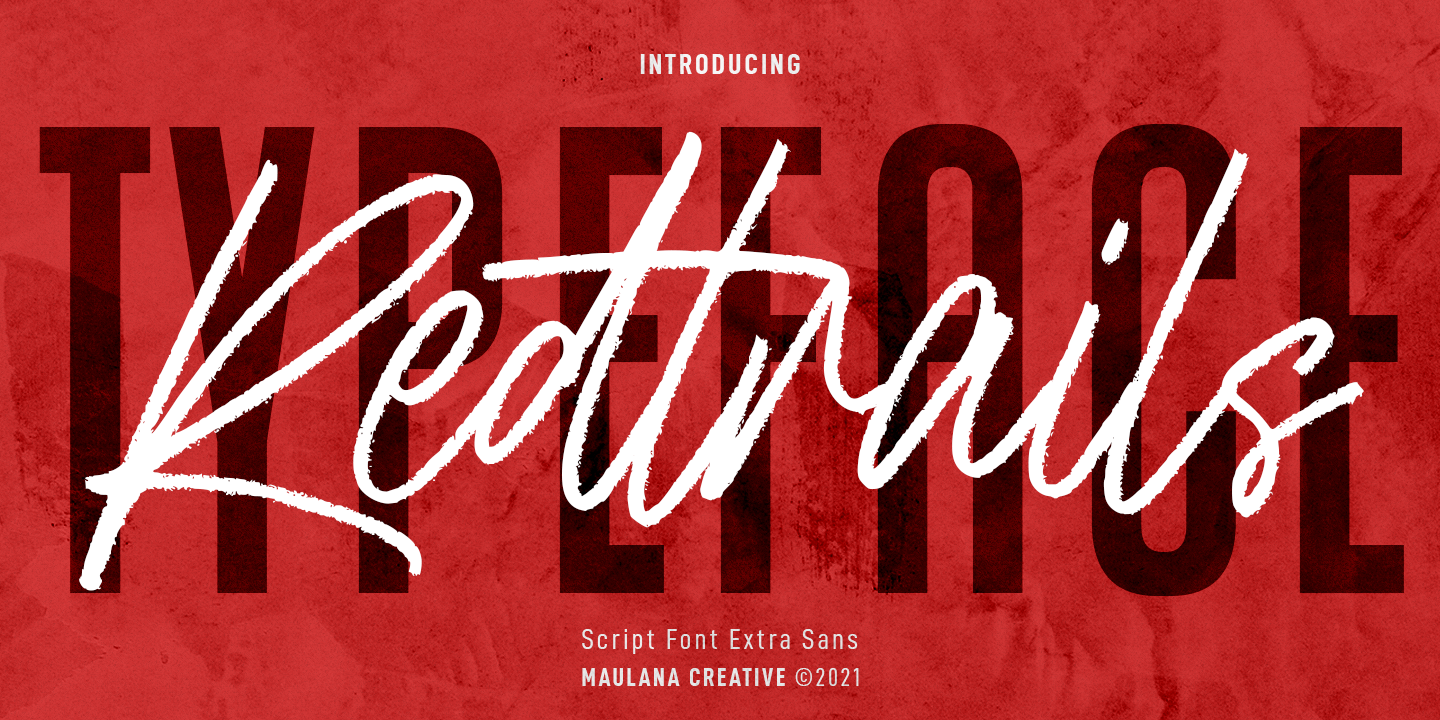
Redtrails Font is a dynamic and adventurous typeface, perfectly suited for designs that aim to evoke a sense of exploration, movement, or rugged charm. Imagine it gracing the branding for an outdoor apparel company, providing a bold and energetic look for a sports event poster, or adding a distinctive, handcrafted feel to signage for a wilderness retreat. Its often textured, brush-like, or distressed aesthetic makes it ideal for creative digital content, impactful advertisements, and any print materials where a sense of raw authenticity or thrilling excitement is desired. From action-packed video game titles to rustic café menus, this font delivers a memorable and visually compelling punch.
What makes Redtrails Font so exciting is its ability to convey a strong sense of personality and narrative. It's often designed to look like it was drawn by hand, perhaps with the imperfect strokes of a brush or the ruggedness of a weathered trail. This distinct character immediately adds warmth, authenticity, and a story to your design. It breaks away from clean, sterile fonts to offer a more tactile and engaging visual experience. Whether it's signaling adventure, creative freedom, or a down-to-earth vibe, Redtrails Font stands out by adding a unique, expressive touch that captivates the audience.
The Redtrails Font family typically focuses on delivering its distinctive style with high impact and character. While it might not have an extensive range of traditional weights like a versatile sans-serif, you can generally expect to find a finely crafted Regular weight, often accompanied by bold versions or stylistic alternatives that further enhance its unique aesthetic. These variations are designed to provide flexibility within its specific style, allowing designers to create compelling headlines, subheadings, and decorative elements that maintain the font's raw, expressive charm across different applications.
For those seeking a font that delivers a genuine handmade feel and a distinctive, adventurous aesthetic, Redtrails Font Free Download offers a wonderful opportunity to explore its charming capabilities. Its unique character and compelling appeal make it a superb choice for projects that aim to feel authentic and visually engaging.